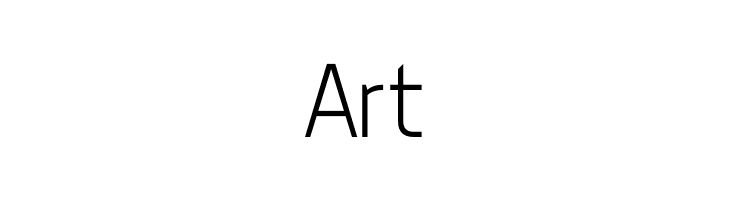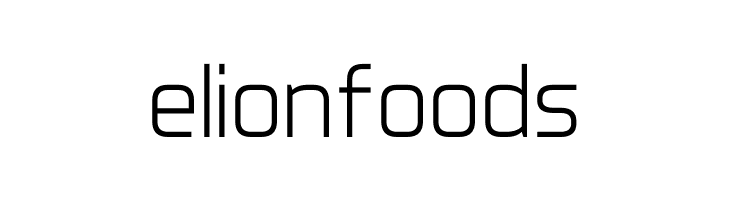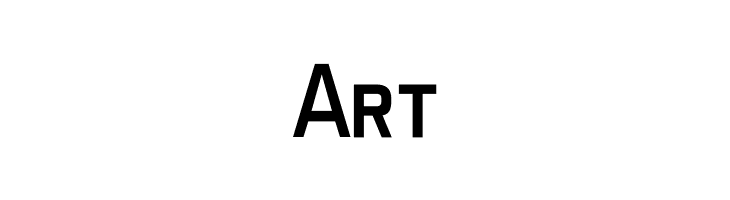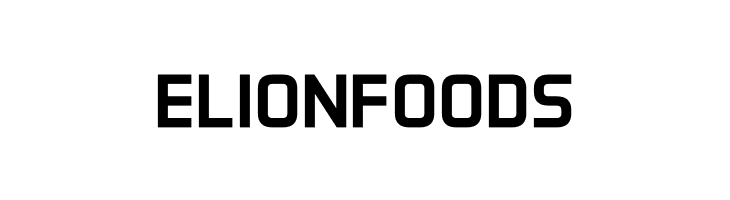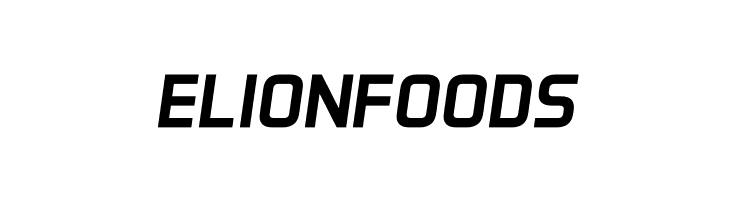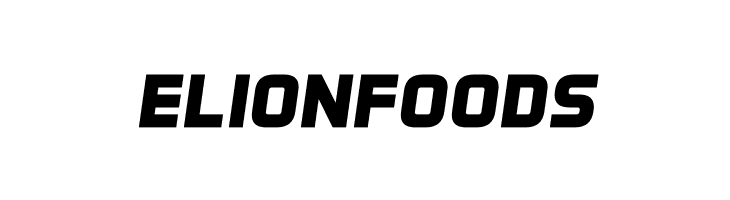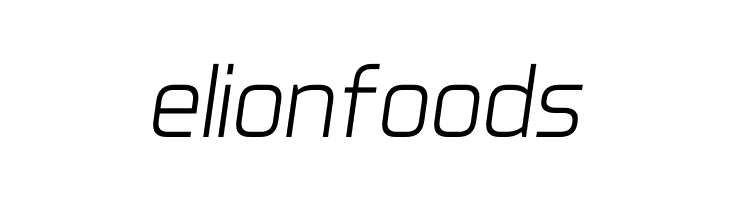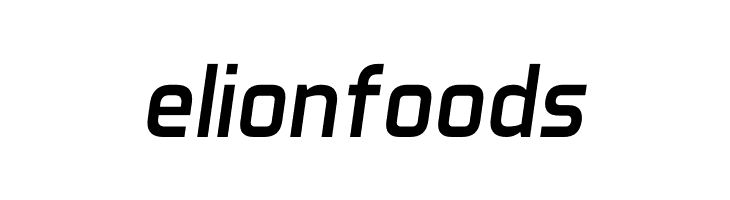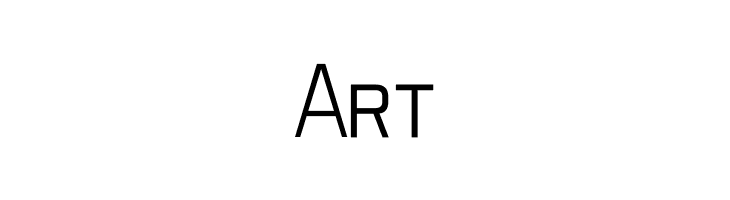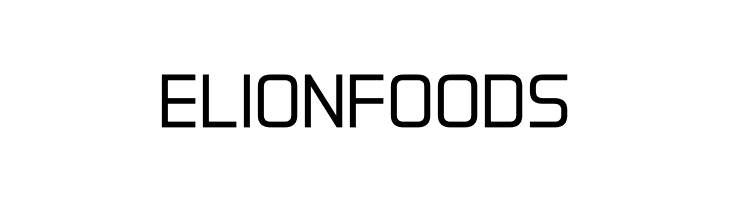
• AR DECODE
• AR DELANEY
• AR DESTINE
• AR Techni
A modern, rounded sans-serif font with a clean and approachable style.
• Arachnids
A decorative, angular font with a gothic, spider web-inspired design.
• aragon solid
A bold, geometric font with solid shapes and intricate negative space patterns.
• aRape Softular
A bold, abstract font with fluid, irregular shapes and close character spacing.
• Arapey Italic
An elegant serif font with a classic italic style and smooth, flowing curves.
• Arapey Regular
A classic serif font with elegant strokes and moderate contrast, ideal for refined designs.
• Arbutus
A bold, slab serif font with a vintage Western style.
• Arbutus
A bold, rugged font with sharp edges and pronounced serifs.
• Arbutus Regular
A bold, angular font with a vintage Western flair.
• Archive
A bold, geometric font with strong, consistent letterforms.
• Aref Ruqaa Bold
A bold, dynamic serif font with a slight slant and strong presence.
• Aref Ruqaa Regular
An elegant serif font with a blend of traditional and modern elements.
• ArensdorffInk-Regular